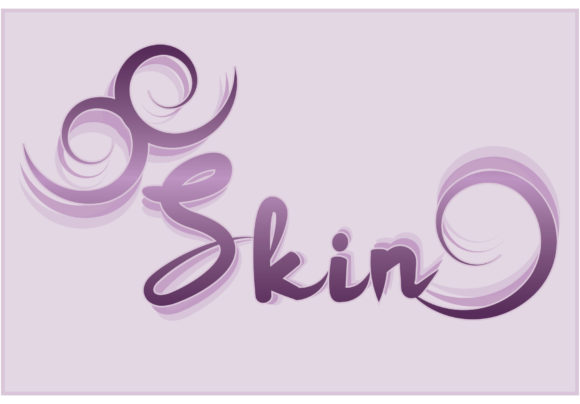
Immerse yourself in the world of elegance and grace as we introduce Skin Font, an enchanting script font family that captivates the hearts of design enthusiasts worldwide. Meticulously crafted by the renowned Designvector10, Skin Font is not merely a collection of letters; it is an artistic masterpiece that breathes life into your creative endeavors.
Unleash the boundless potential of Skin Font, a versatile companion for your content creation journey. Whether you seek to craft captivating social media posts, design stunning logos that leave a lasting impression, or create breathtaking invitations that exude sophistication, Skin Font stands ready to elevate your designs to new heights.
Experience the allure of Skin Font's delicate strokes, each meticulously crafted to evoke a sense of timeless elegance. Its flowing curves dance across the page like a gentle melody, adding a touch of whimsy and charm to your designs. Allow your words to take center stage as Skin Font gracefully accentuates their beauty, transforming ordinary text into captivating works of art.
Dive into a world of endless possibilities with Skin Font, the perfect font for creating captivating content that resonates with your audience. Its distinct and timeless style effortlessly commands attention, ensuring that your messages leave an unforgettable impact. Elevate your designs with Skin Font, and watch as your words come alive, captivating hearts and igniting imaginations.